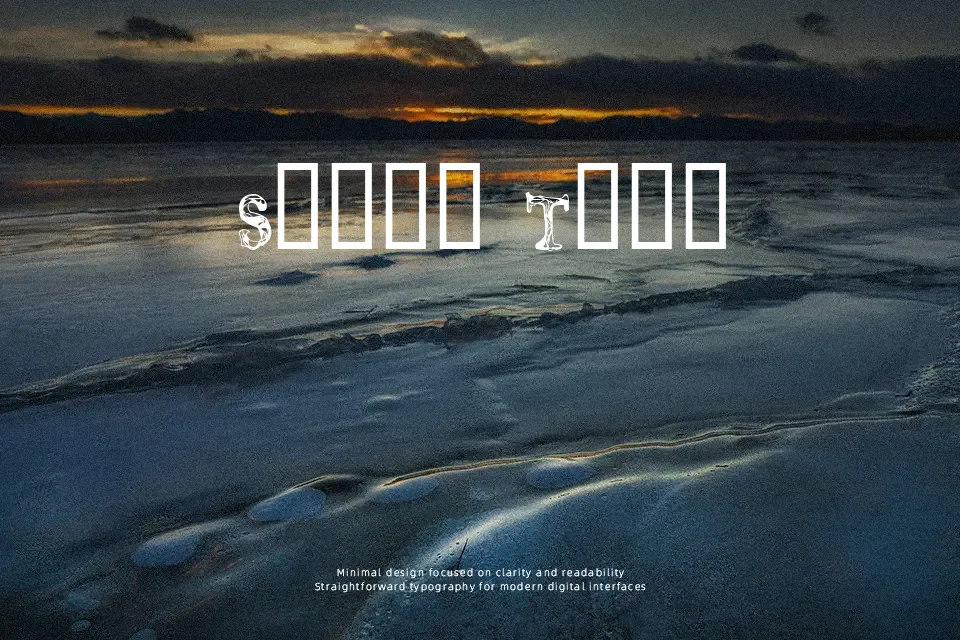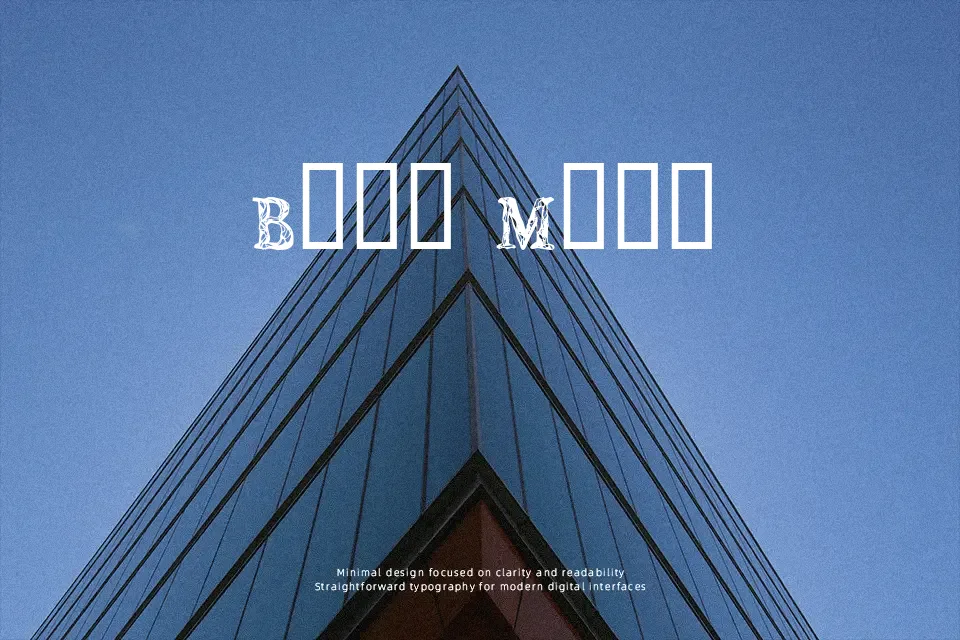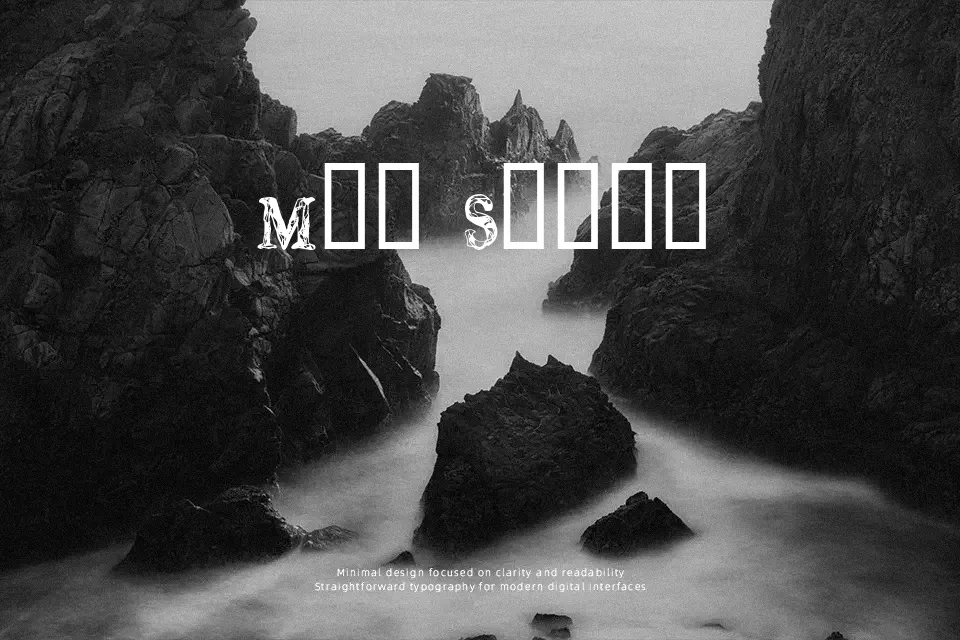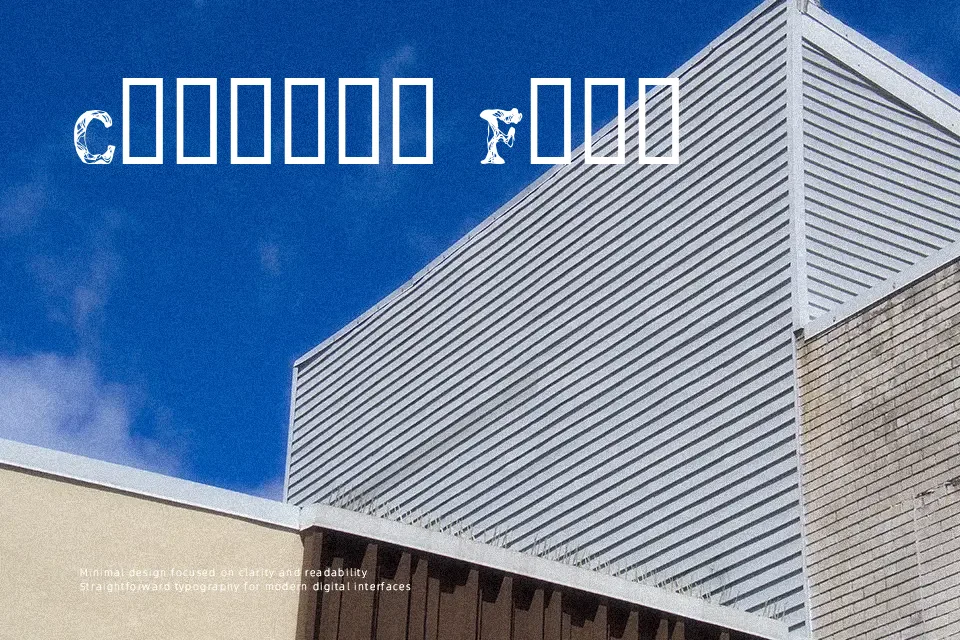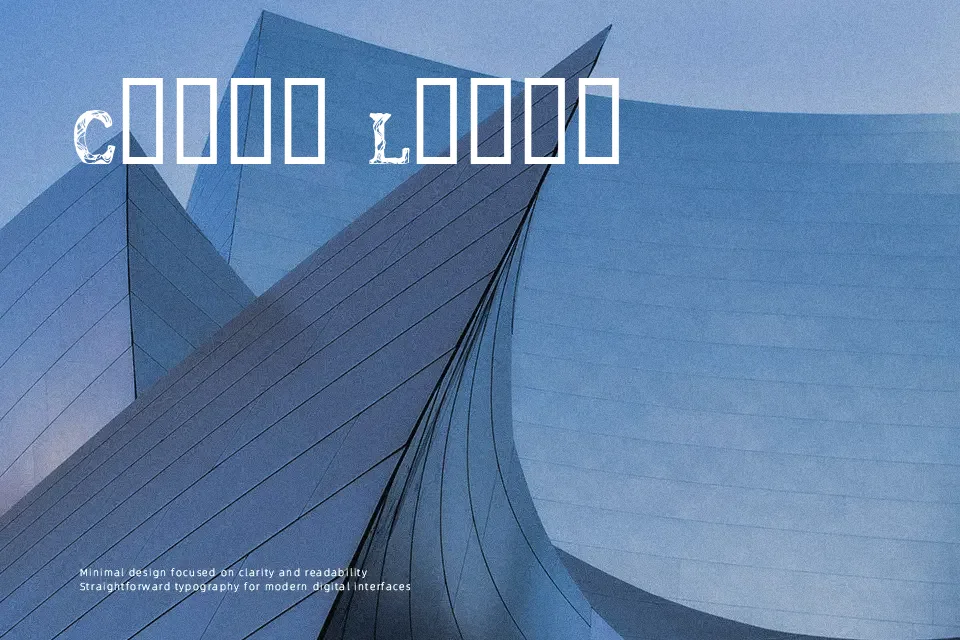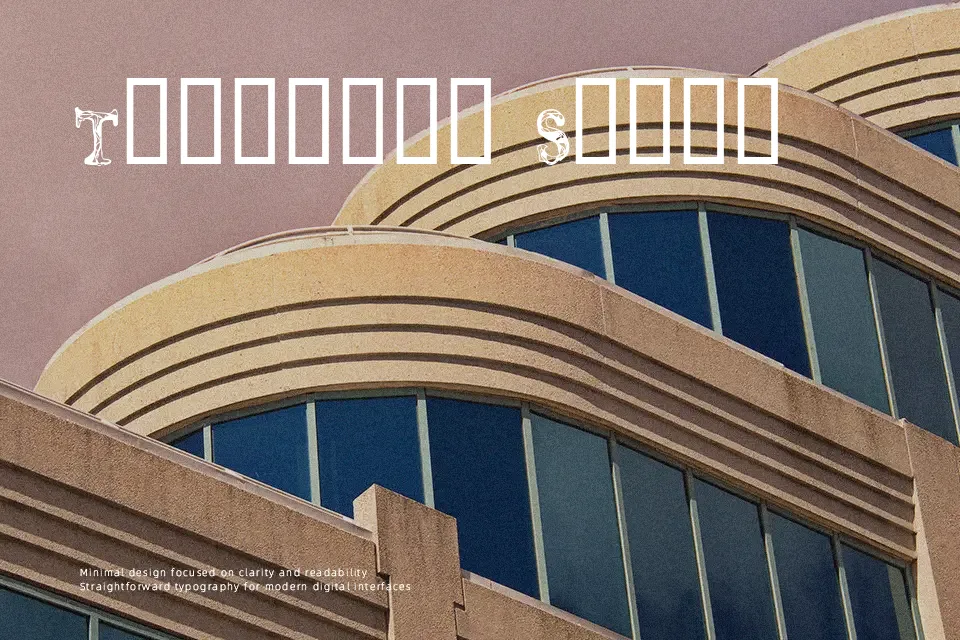
CF Jungle Font
CF Jungle Font delivers an adventurous display style characterized by sturdy wood-grain contours, irregular organic terminals, and heavy stroke weights. The letterforms exhibit consistent cap-height proportions alongside moderately tight character spacing, generating an engaging visual rhythm when set in short bursts of text. While the robust silhouettes maintain clear legibility at generous display scales, intricate decorative notches tend to clutter when rendered at smaller sizes. Consequently, the typeface excels across children book covers, theme park banners, and tropical product labels, though dense paragraphs or compact user interfaces remain impractical for its expressive, high-impact anatomy.
Best For: adventure event posters, children’s storybook titles, themed packaging, safari park signage
Not Ideal For: continuous reading paragraphs, mobile application menus, technical documentation
Perfect for gaming, headline, and kids, with a artistic and cartoon style.